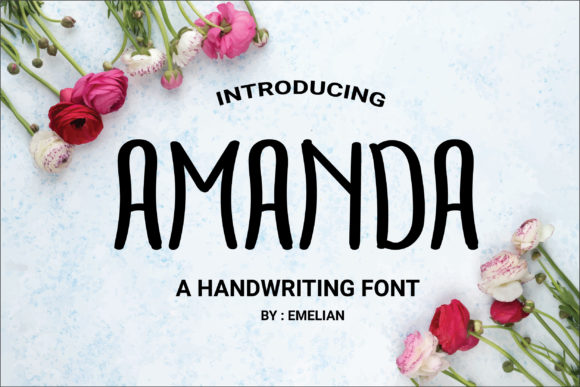
The Amanda Font: A Quirky and Lovable Companion for Your Design Projects
I still remember the time I was working on a children’s book design project, and I was on the hunt for the perfect font. My client wanted something that was both playful and educational, but I was coming up blank. That’s when I stumbled upon the Amanda font, and it quickly became my go-to companion for the project. In this article, I’ll share my experience with the Amanda font, its features, and how to make the most of it in your designs.
An Honest Review of Amanda Font
The Amanda font is a neat and natural handwritten font that’s perfect for a wide range of children’s designs and school projects. Here’s what I love about it:
• ✨ Unique and quirky personality that sets it apart from other fonts
• ✅ Easy to read, even at smaller font sizes
• ✅ Highly versatile and can be used for various design projects, from posters to digital content
• ✅ Supports OpenType features, glyphs, and stylistic alternates
However, like any font, Amanda has its quirks:
• ⚠️ Some letters may appear a bit cramped or uneven, which can be adjusted with kerning and tracking
• 🤔 Limited availability of language support, so make sure to check the font’s capabilities before using it for a specific project
The Story Behind Amanda Font
The Amanda font was designed with the intention of creating a unique and quirky handwritten font that would stand out in children’s designs and school projects. The designer aimed to craft a font that was both playful and educational, making it perfect for a wide range of creative applications.
What is the Amanda font best suited for? The Amanda font is perfect for children’s designs, school projects, posters, and digital content that requires a playful and educational touch.
Can I use the Amanda font for language-specific projects? The Amanda font supports basic Latin characters, but its language support may be limited. Be sure to check the font’s capabilities before using it for a specific project.